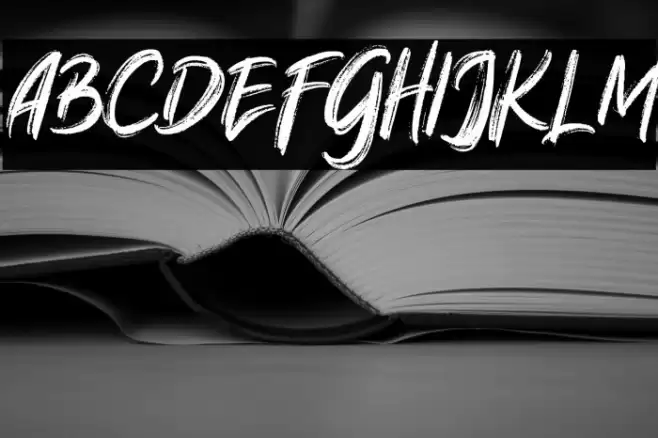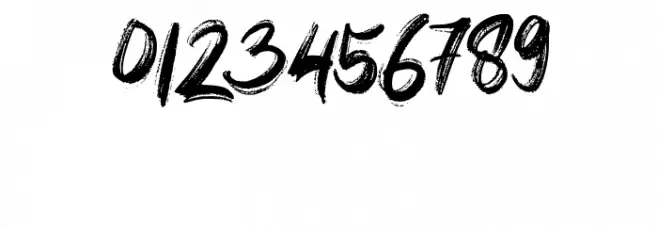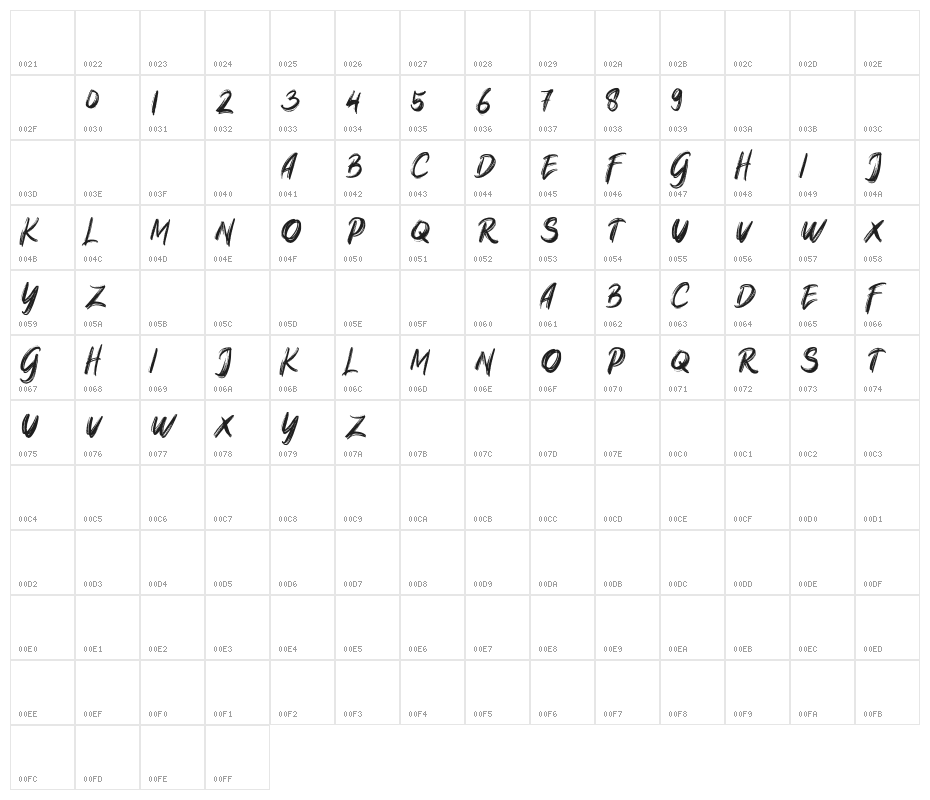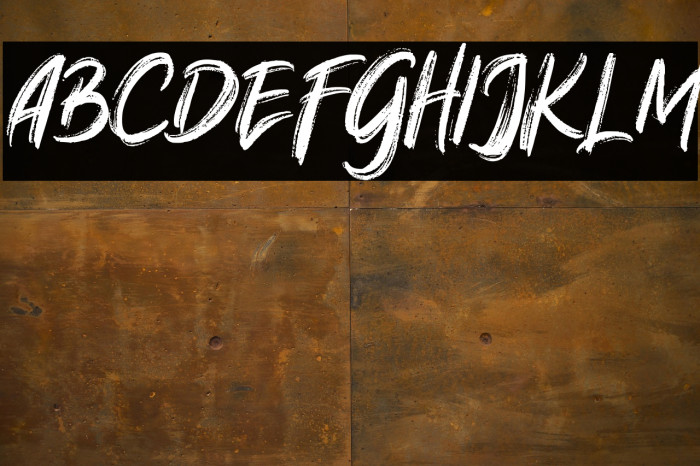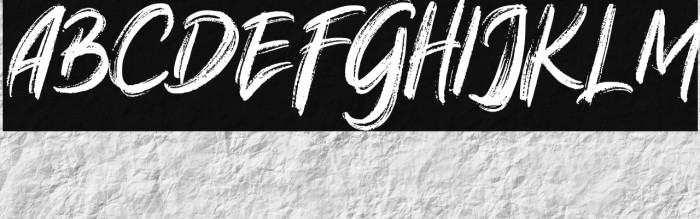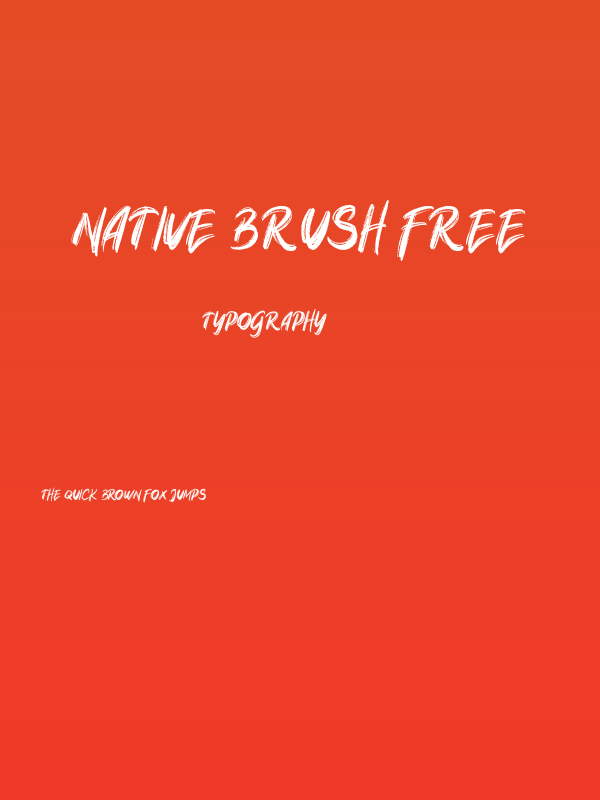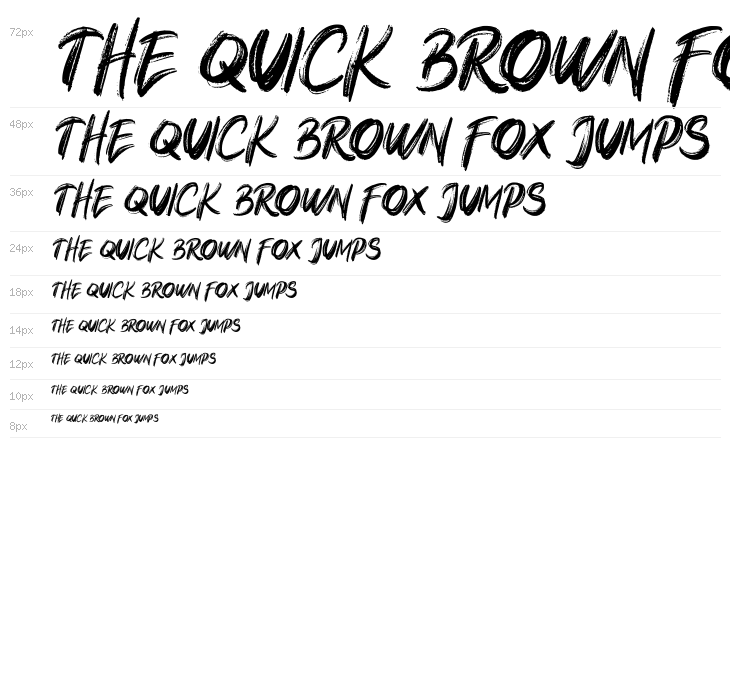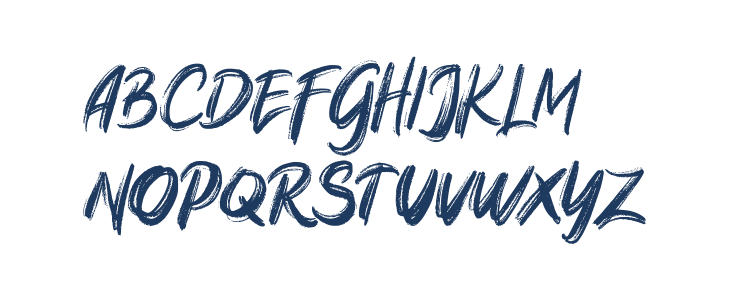
Native Brush FREE Font
Native Brush FREE Description
This font features a dynamic and expressive brush style, characterized by bold, sweeping strokes that convey a sense of energy and movement. The letters have a hand-painted appearance, with varying thicknesses and a slightly rough texture that adds to its artistic flair. The uppercase and lowercase letters maintain a consistent style, while the numbers and special characters complement the overall aesthetic. This font is ideal for projects that require a personal, handcrafted touch, such as invitations, posters, or branding materials that aim to capture attention with a bold statement.
A bold, expressive brush-style font with dynamic strokes and a hand-painted look from Uncategorized fonts.
- Font: Native Brush FREE
- Proposed Projects: Ideal for artistic projects, branding, posters, invitations, and any design needing a bold, handcrafted touch.